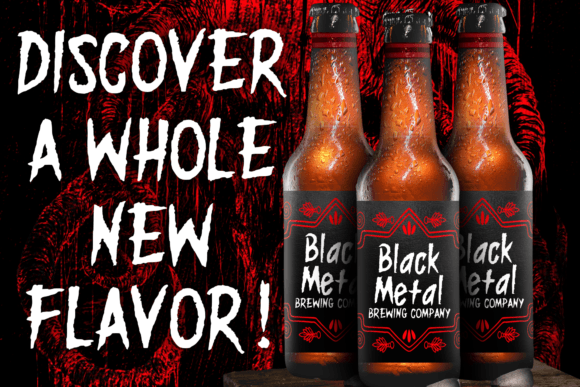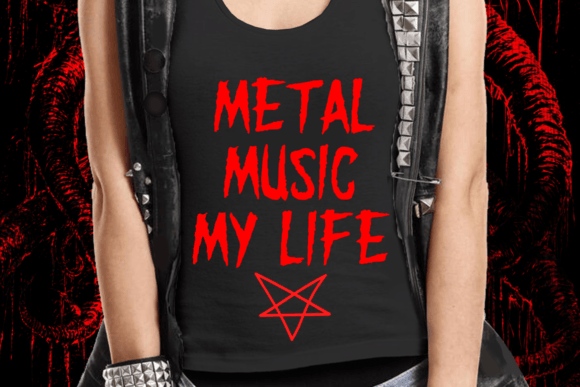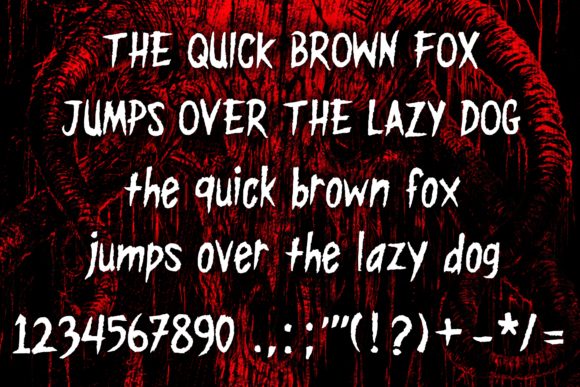
Black Metal Goat Font
Black Metal Goat is a skinny horror grunge font inspired by vintage horror movies, horror comics, and Metal music. It will be perfect for your horror and Halloween themed needs! You can use it for anything ranging from merchandise like t-shirts and clothing, for your scary book designs, Halloween party needs, greeting cards, stickers, posters, banners, or anything that needs a horror touch.